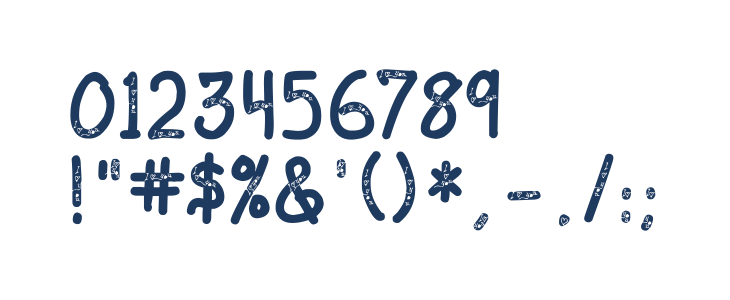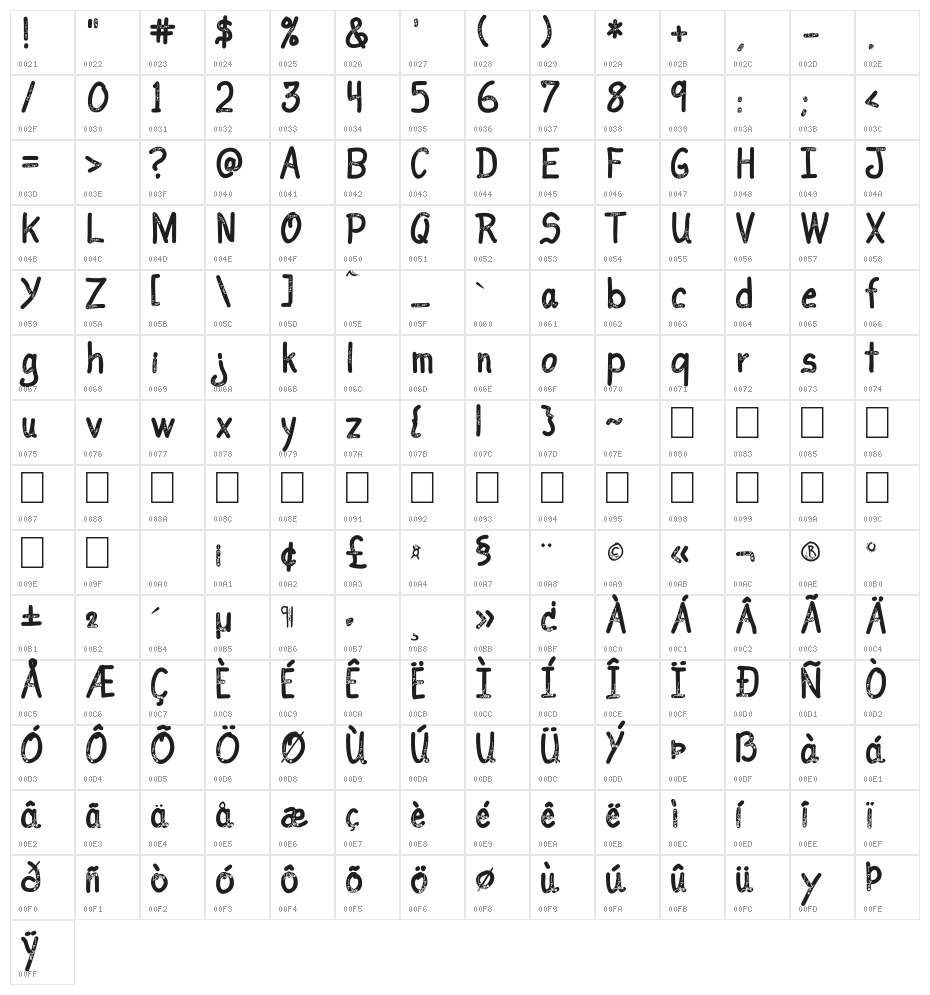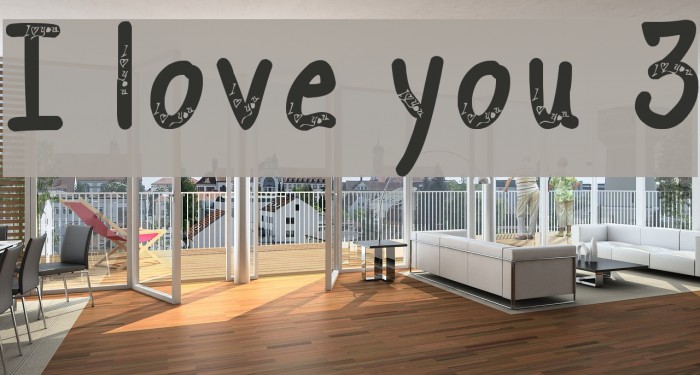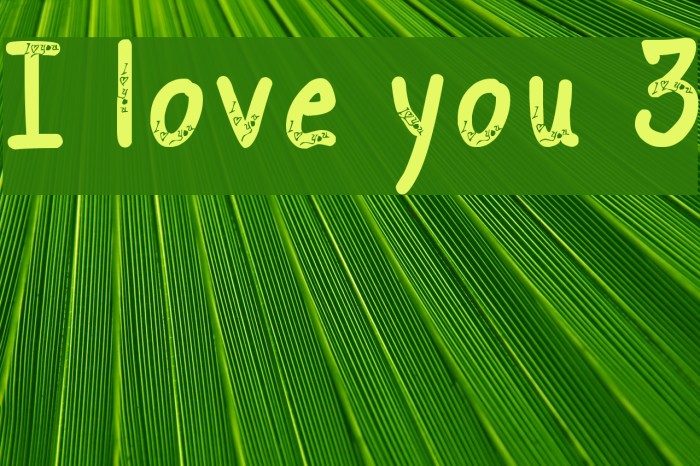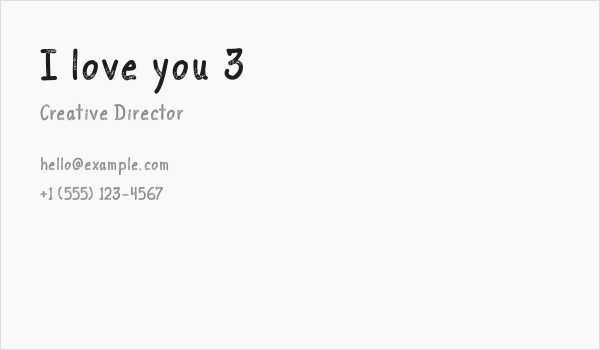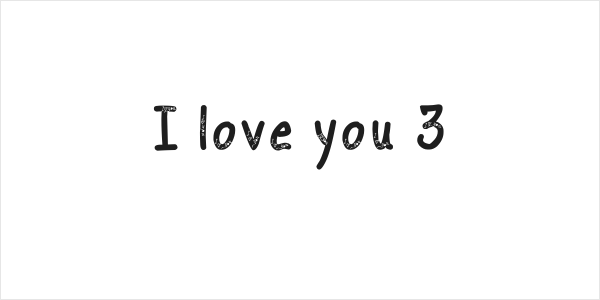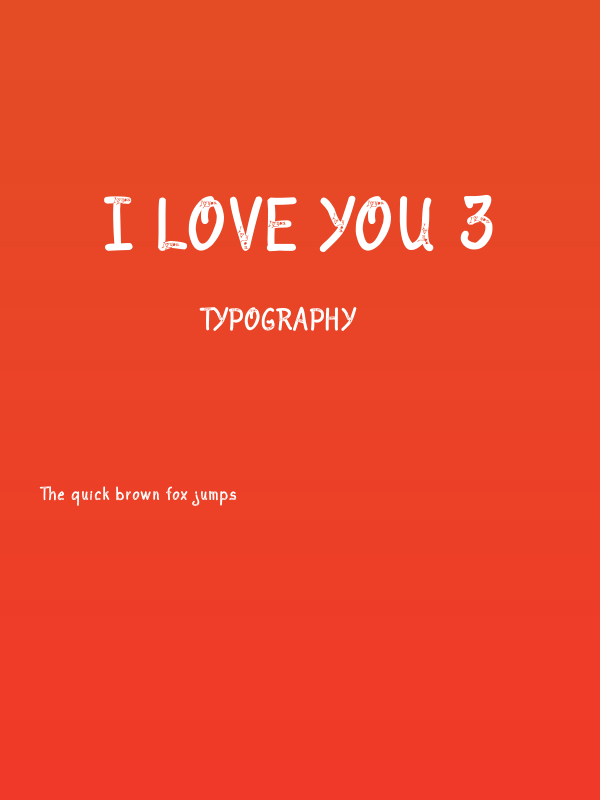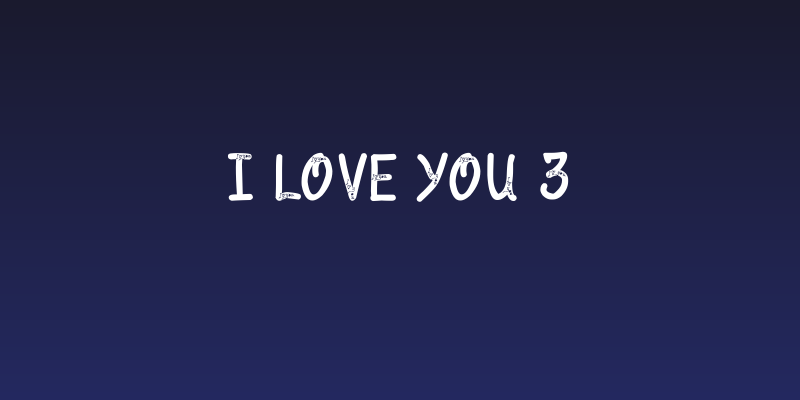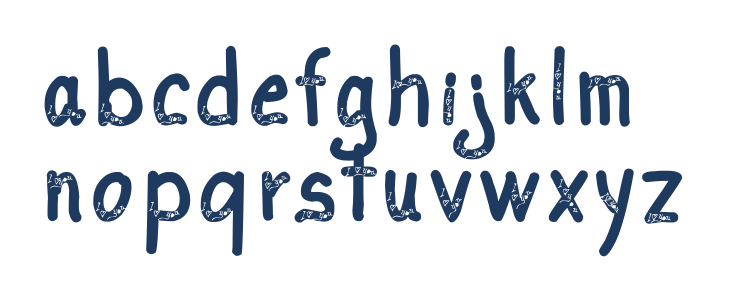
I love you 3 Font
I love you 3 Description
This playful and decorative font features a handwritten style with a unique, whimsical touch. Each character is adorned with subtle, heart-themed embellishments, giving it a charming and romantic feel. The letters are bold and rounded, with a slightly uneven baseline that adds to its casual, friendly appearance. The font maintains a consistent weight throughout, ensuring readability while still offering a distinct personality. The numbers and special characters follow the same playful design, making it suitable for creative projects that require a touch of fun and warmth.
| Proposed Projects | Ideal for greeting cards, wedding invitations, love-themed posters, and playful branding projects. |